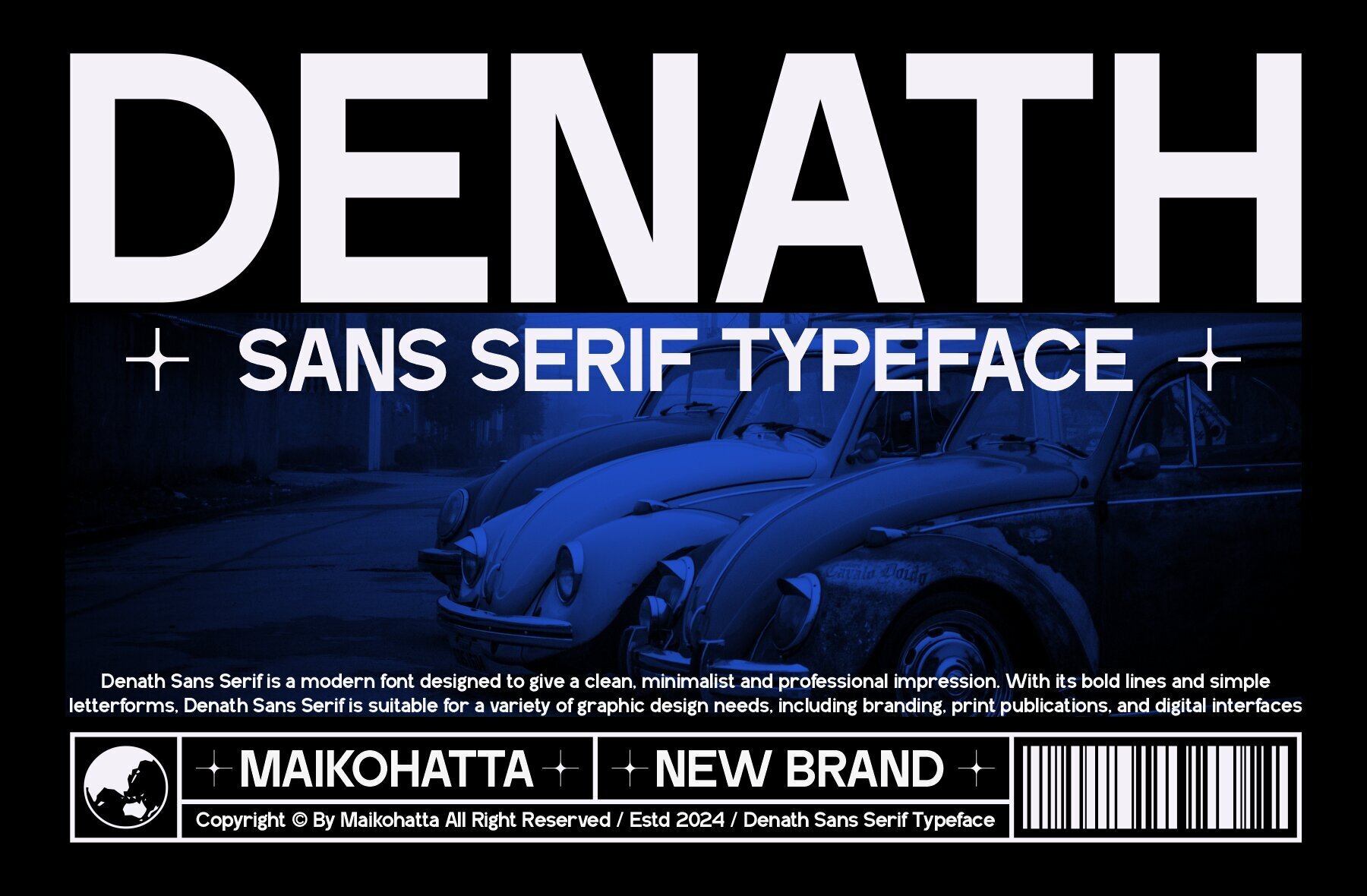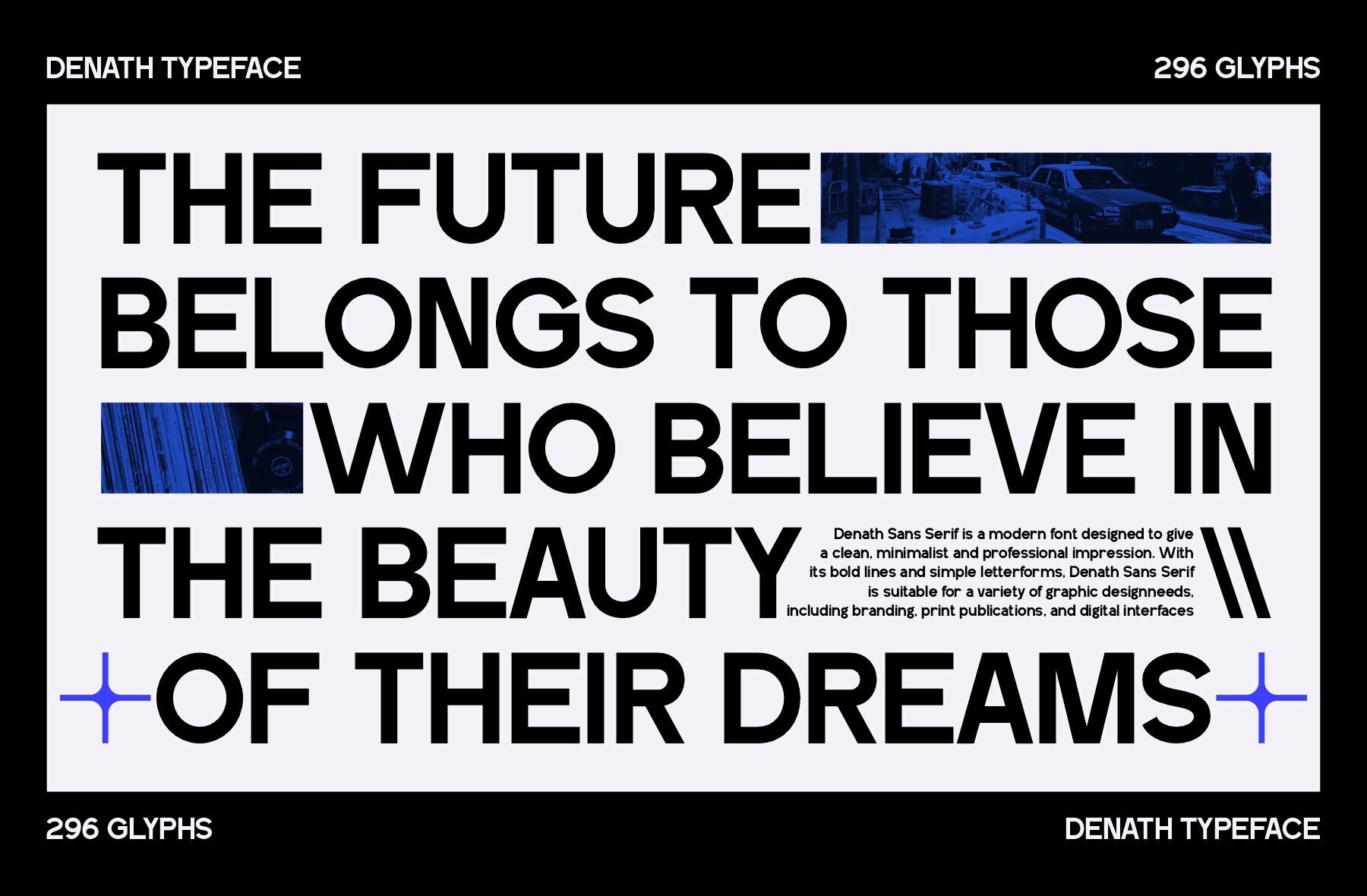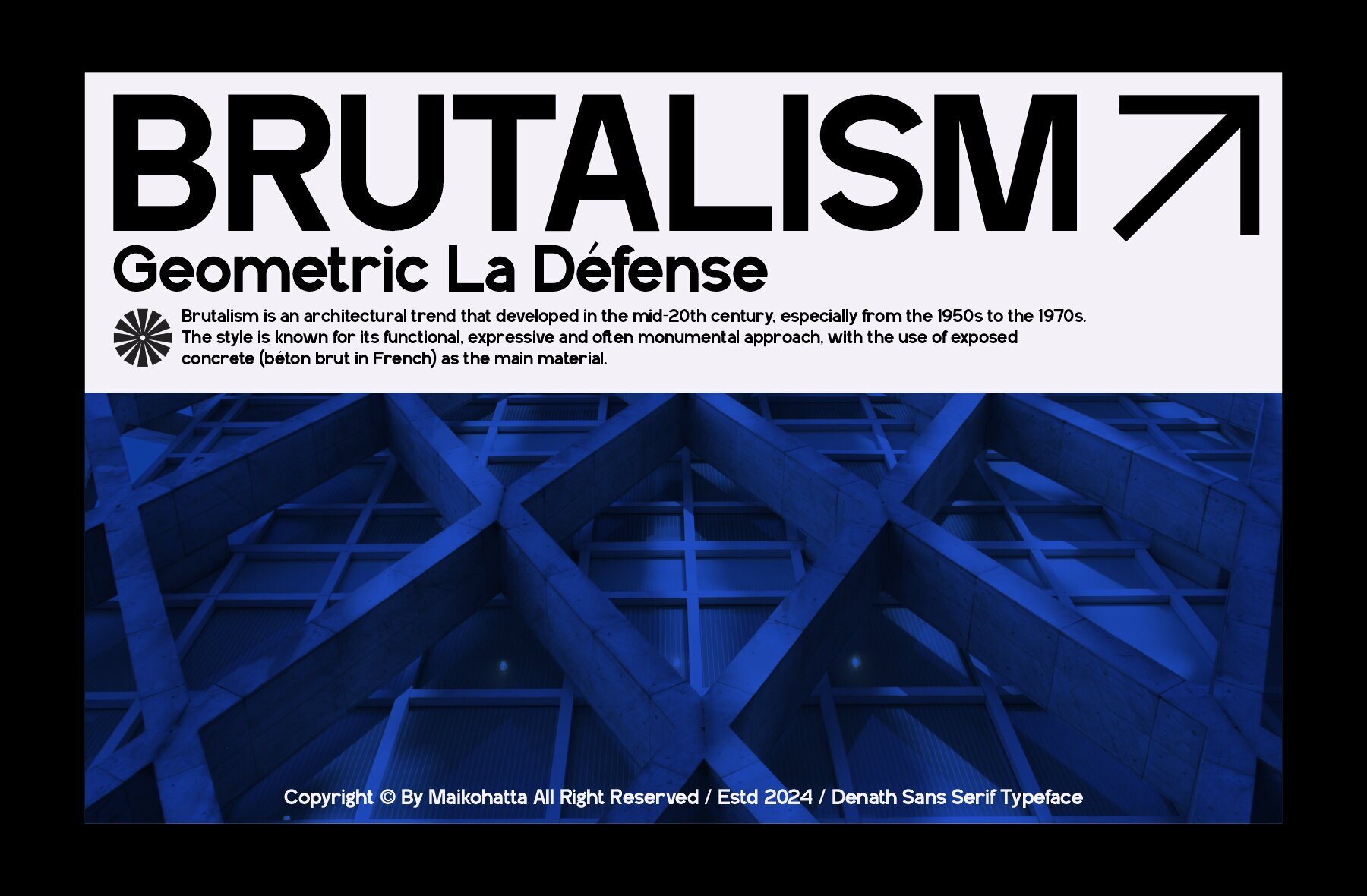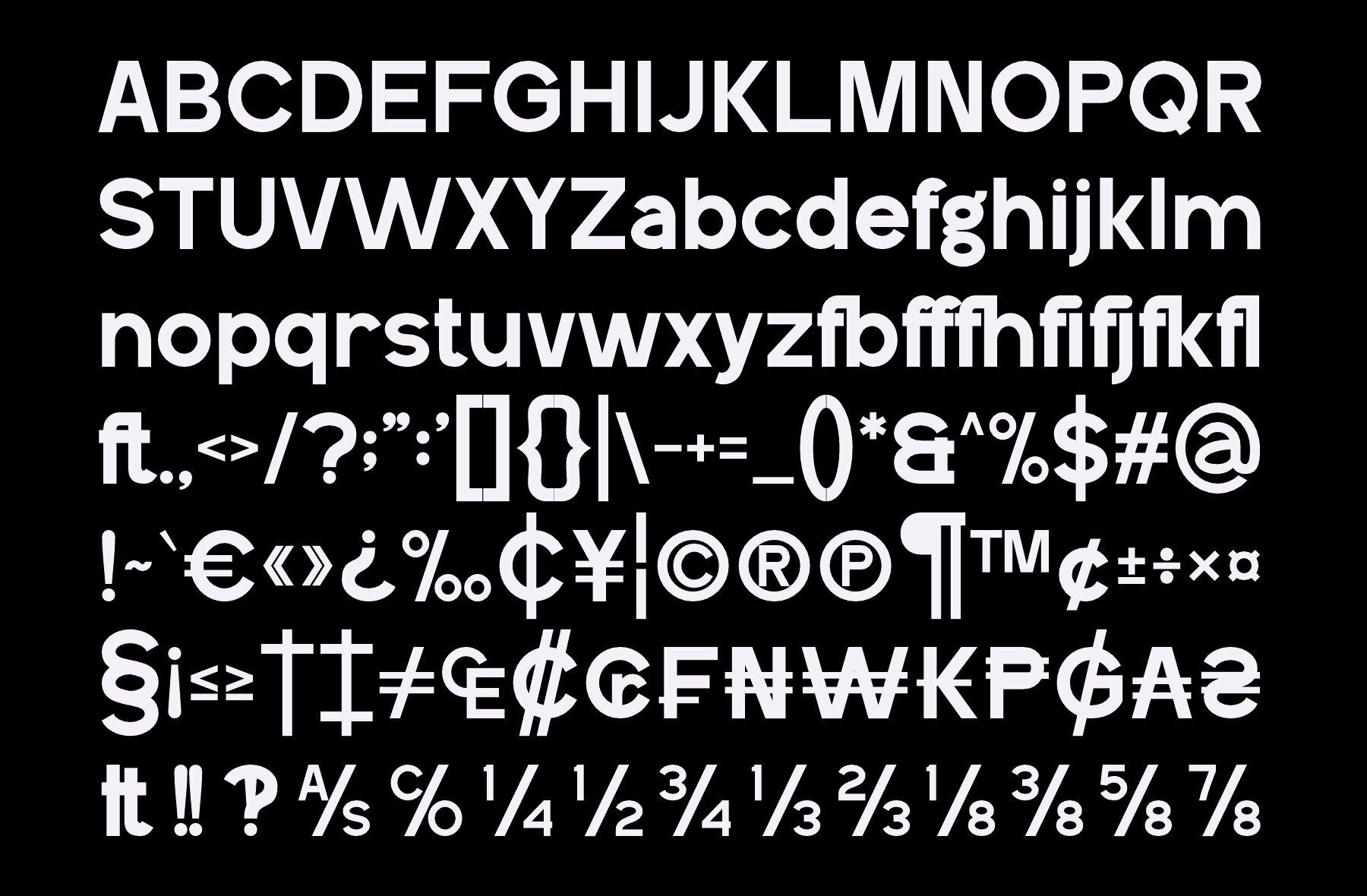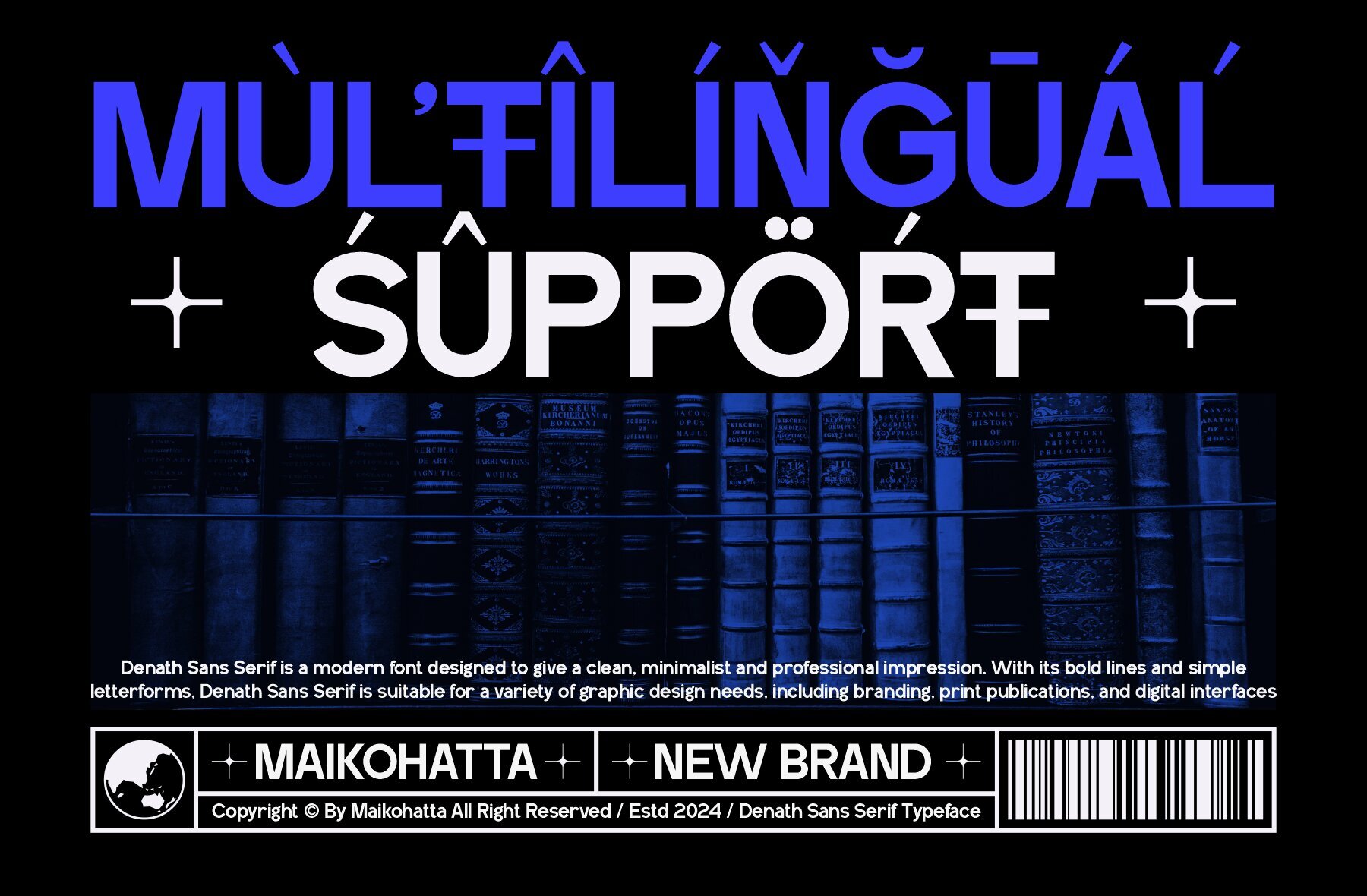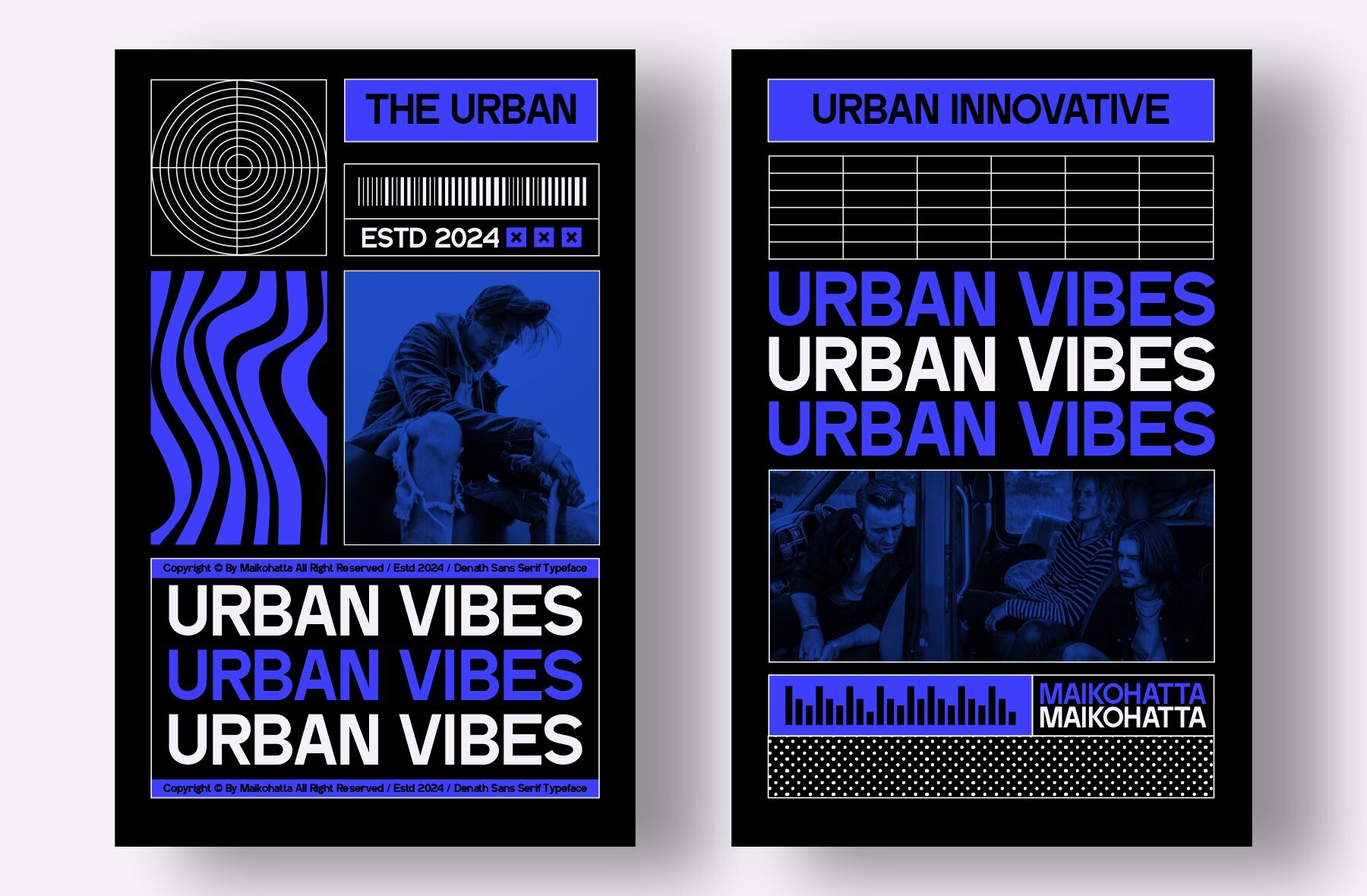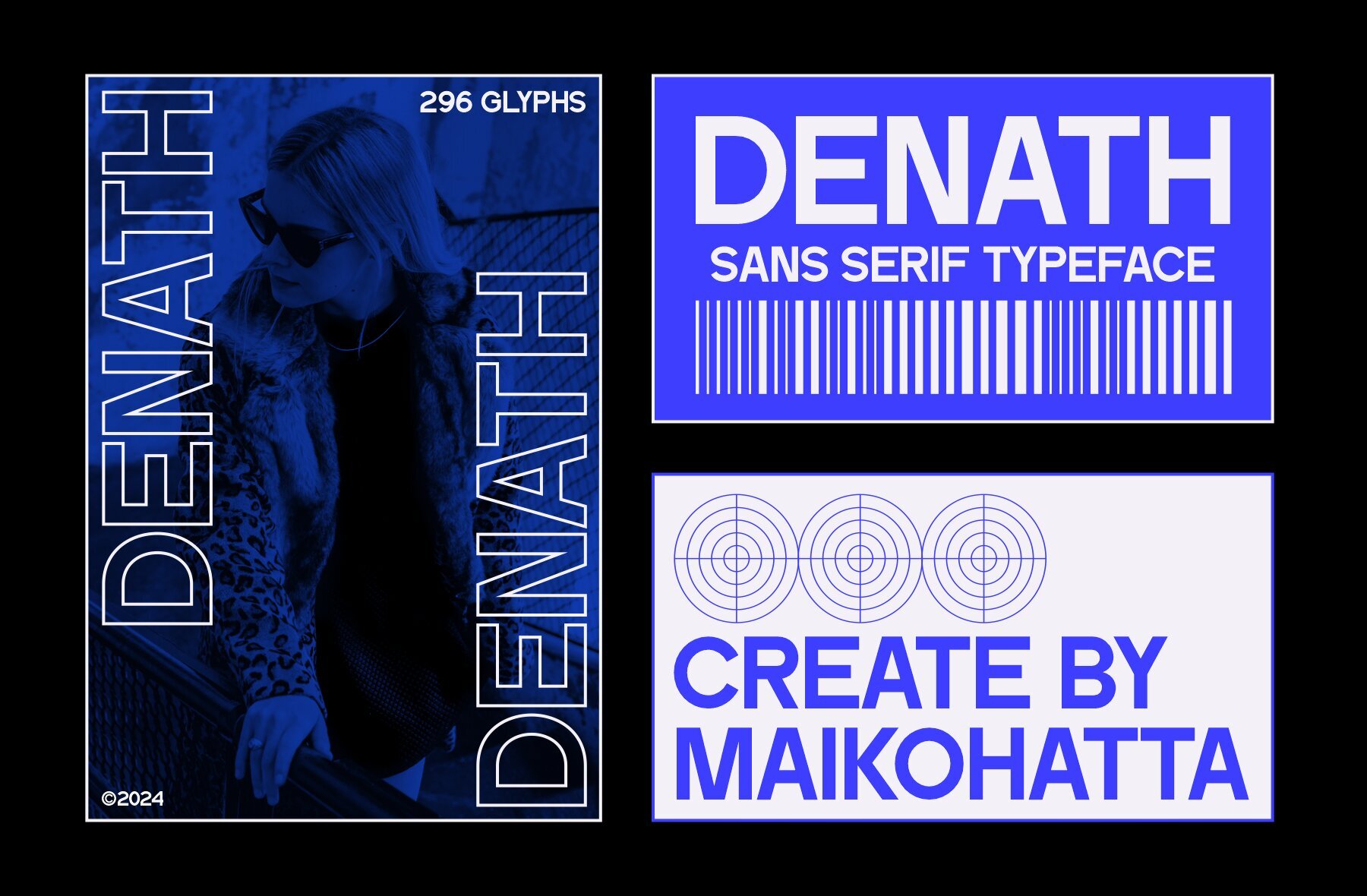
Denath Font
Denath Regular
Denath is a versatile sans serif typeface, perfect for various design contexts. Its clean, professional look and modern simplicity make it an excellent choice for graphic design and contemporary typography. Features include uppercase, lowercase, multilingual support, and ligatures.